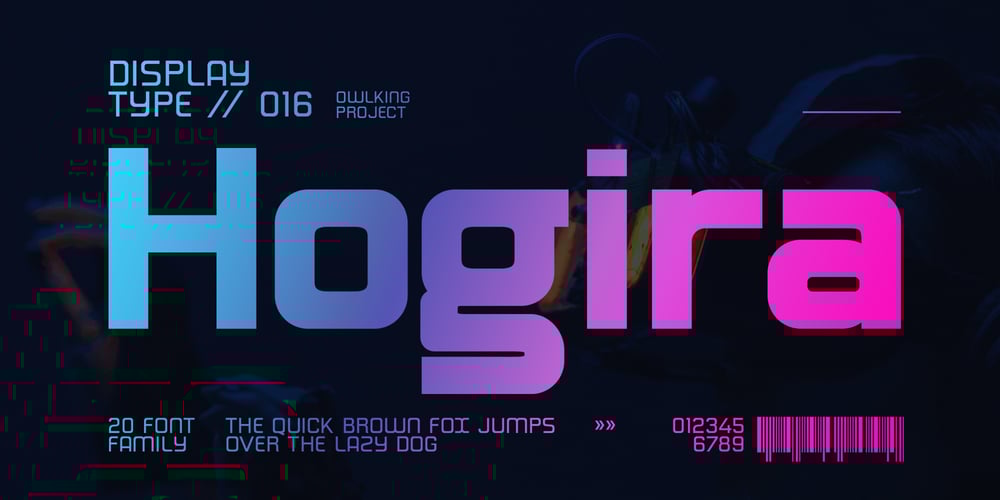
Hogira V2 Font Family was designed by Darhilen and published by Owl king project. Hogira V2 contains 20 styles and family package options. HogiraInspired by technological developments, Hogira is a future-looking display font, Hogira is very suitable for use in writing titles, making text-based logos, websites, and modern design types that are related to emerging technology themes. Hogira also supports 20 families and multiple languages.